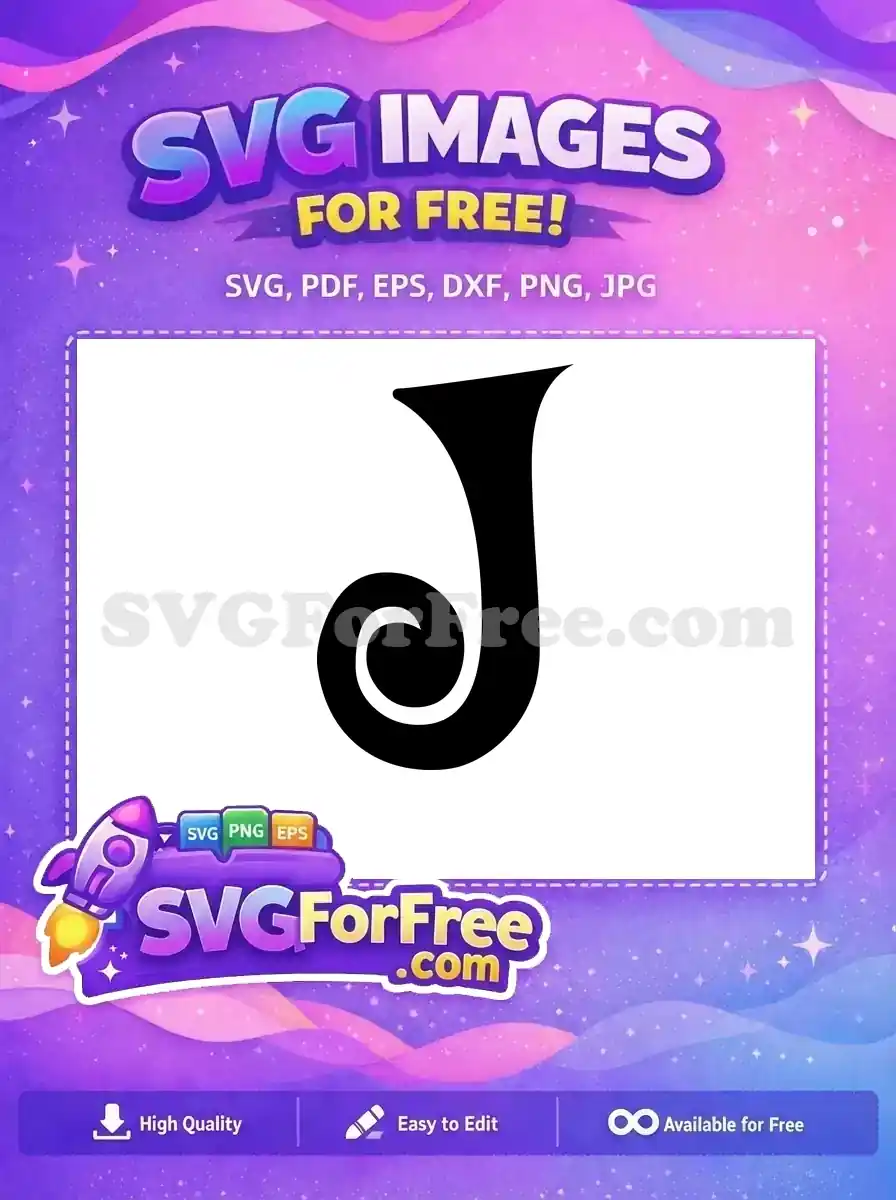
Free Black Swirl Font Free Letter J Initial Free SVG – Instant Download
Letter J with a massive, heavy curl, available as a free vector design.
Free Black Swirl Font Free Letter J Initial Free SVG